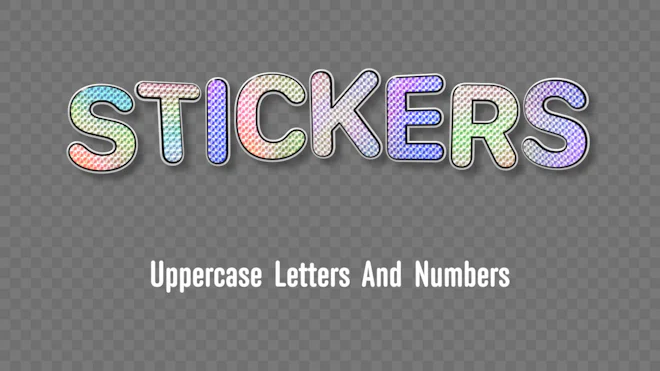
Pack Of 36 Iridescent Retro Sticker Uppercase Typefaces On Alpha Loop
This stock motion graphics video pack includes 36 clips of iridescent retro sticker uppercase letters and numbers on a transparent alpha channel in a seamless loop.